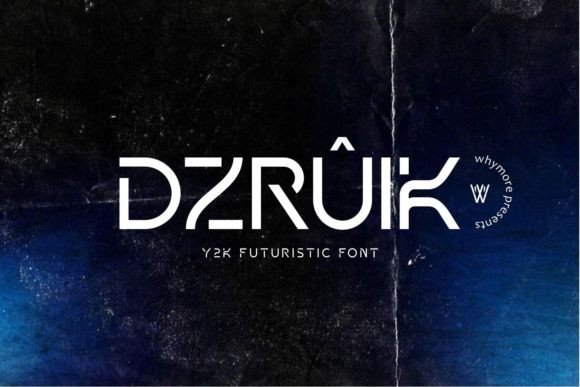
Introducing the Dzruik Font, the ultimate font for all your football jersey design needs. This sans serif font, created by the brilliant minds at Whymore, is a masterpiece that combines minimalism with a touch of luxury and class.
With its sleek and stylish appeal, Dzruik is not just limited to football jerseys. It is a versatile font that can elevate your branding, design templates, calendars, posters, headlines, brochures, promotional tools, and editorial designs to new heights.
What sets Dzruik apart from the rest is its ability to meet the visual needs of technological development. It captures the essence of the future while maintaining a timeless sophistication that will never go out of style.
The legibility of Dzruik is unmatched, ensuring clear communication while also grabbing attention with its sharp and eye-catching design. Every word written in Dzruik will make a bold statement, leaving a lasting impression on anyone who sees it.
But what truly makes Dzruik exceptional is its ability to transport you to a different visual realm. It effortlessly combines futuristic elements with a nostalgic Y2K style, creating a unique and captivating visual experience.
Imagine the impact your designs will have with Dzruik as your secret weapon. It will make your football jerseys, headlines, logos, and lettering stand out from the crowd, giving them a professional and cutting-edge edge.
Don't be limited by ordinary fonts – choose Dzruik and take your designs to the next level. Embrace the future of typography and let Dzruik unlock a world of endless possibilities for your creative endeavors.